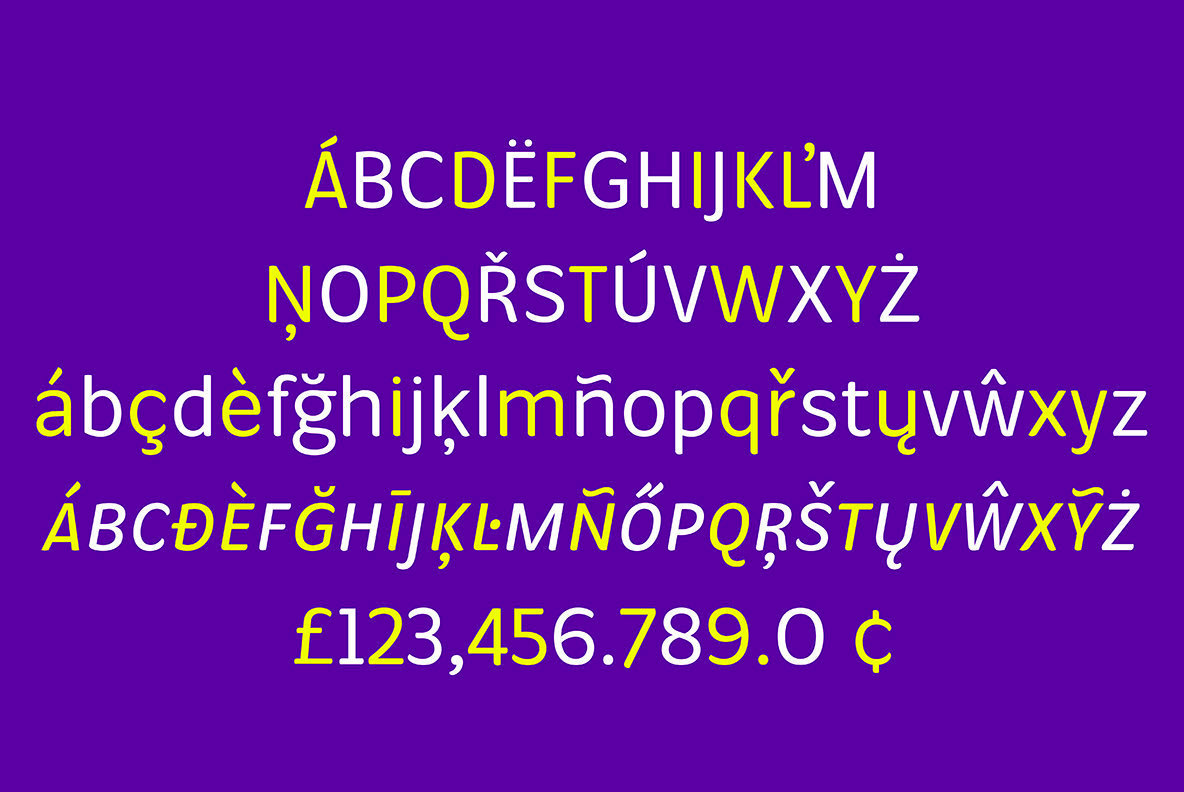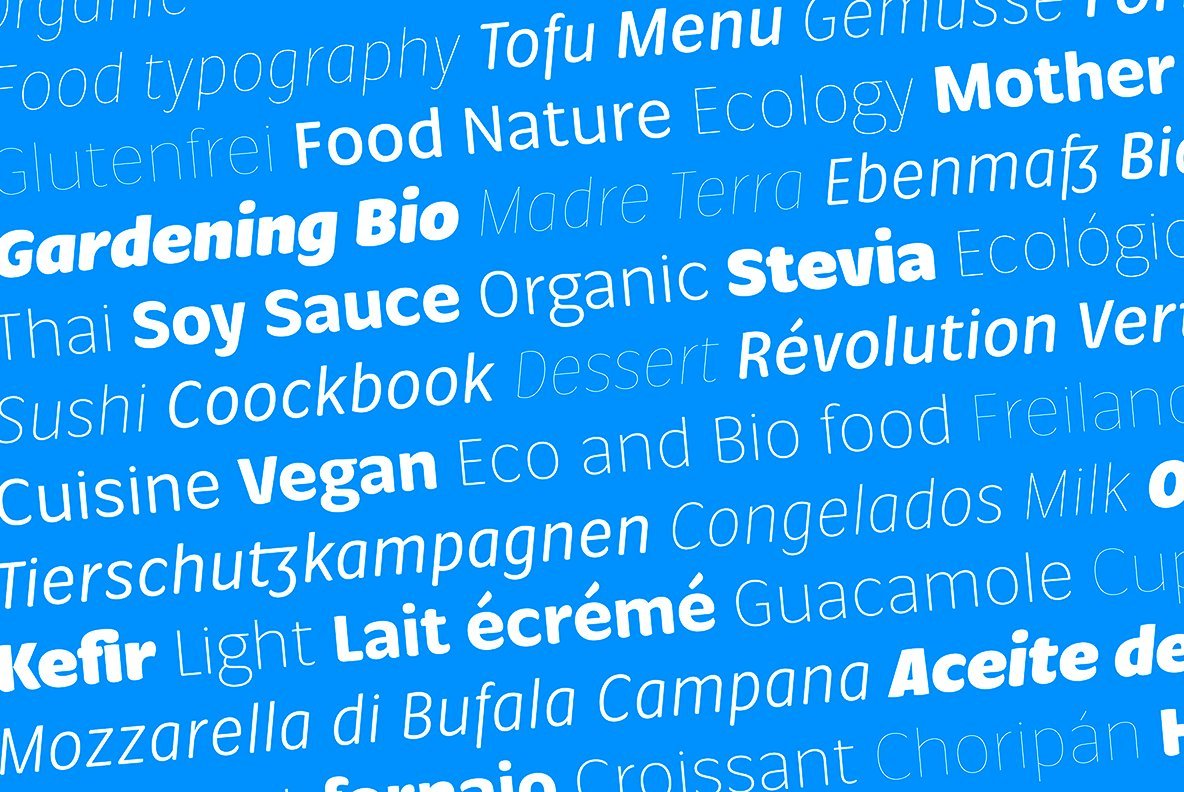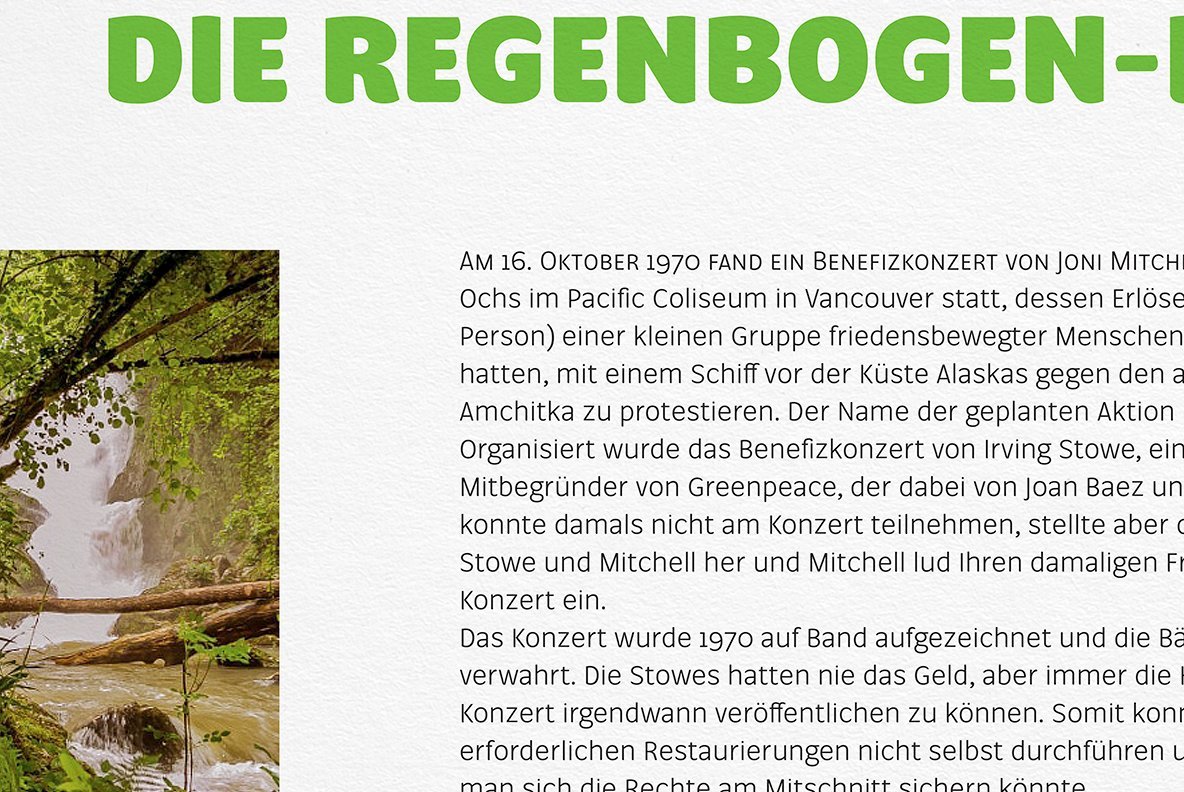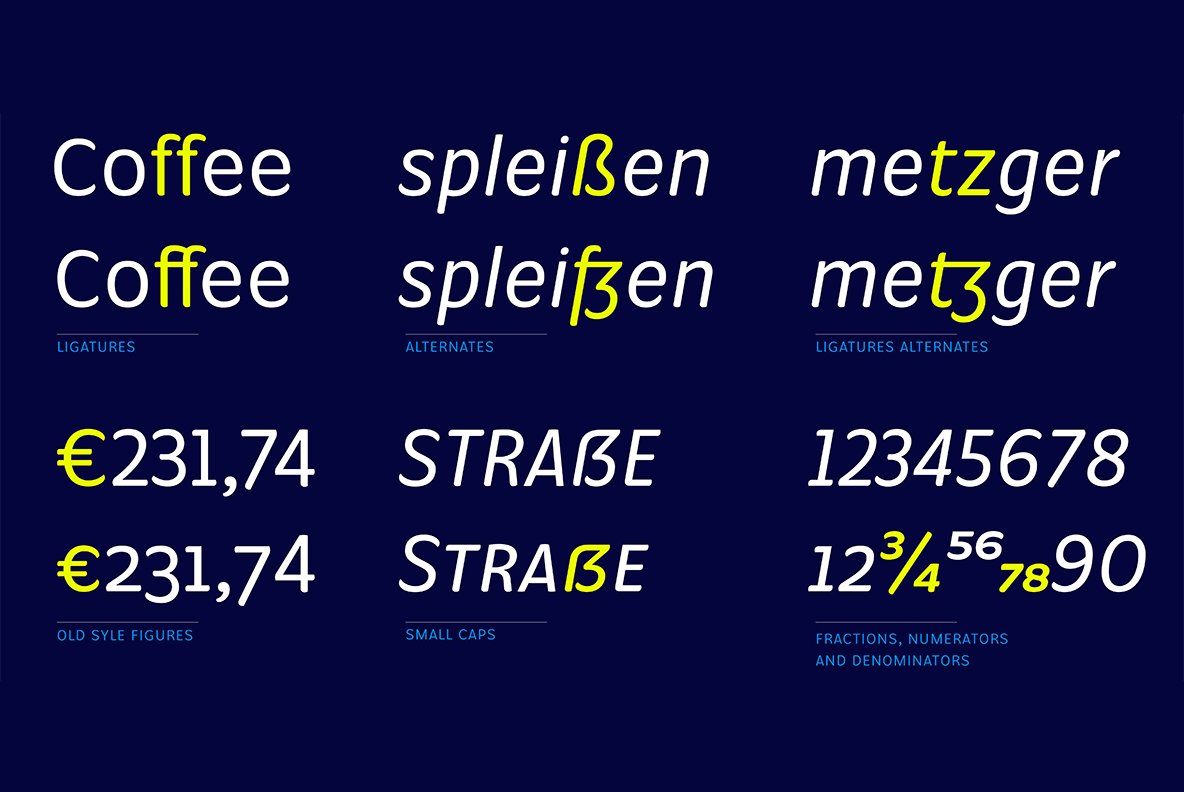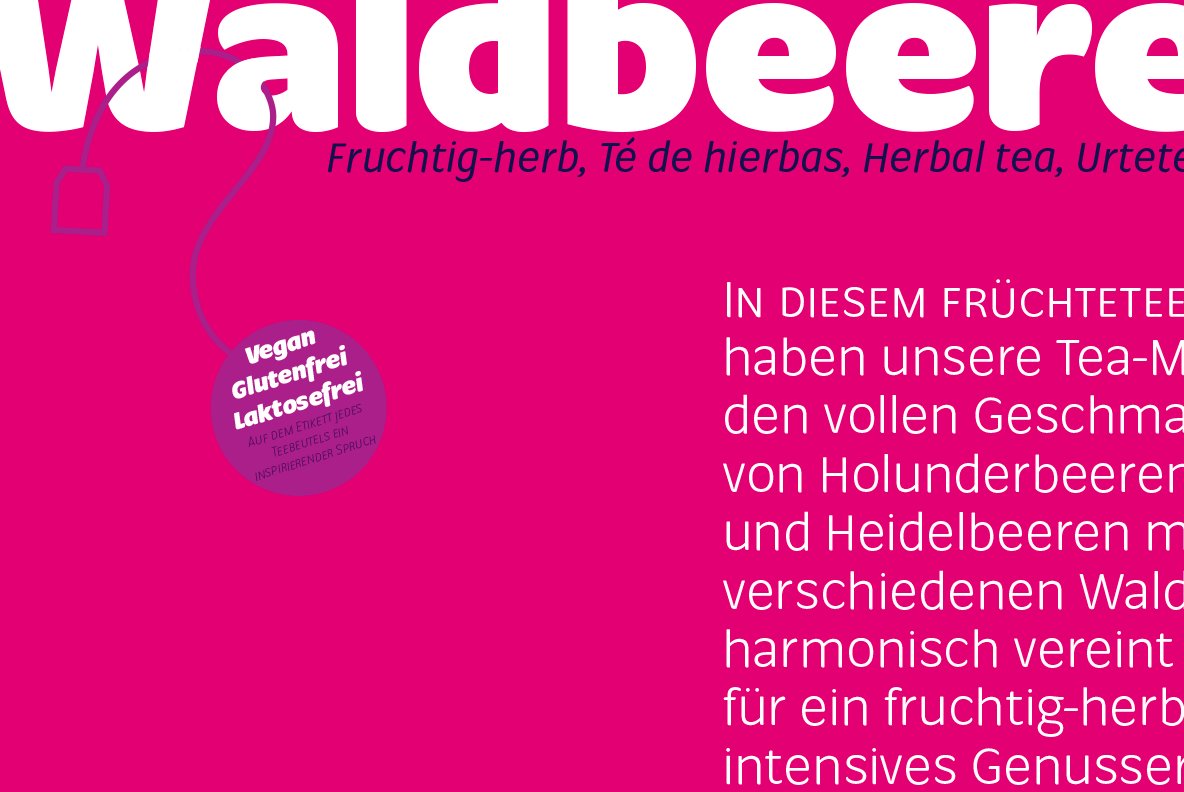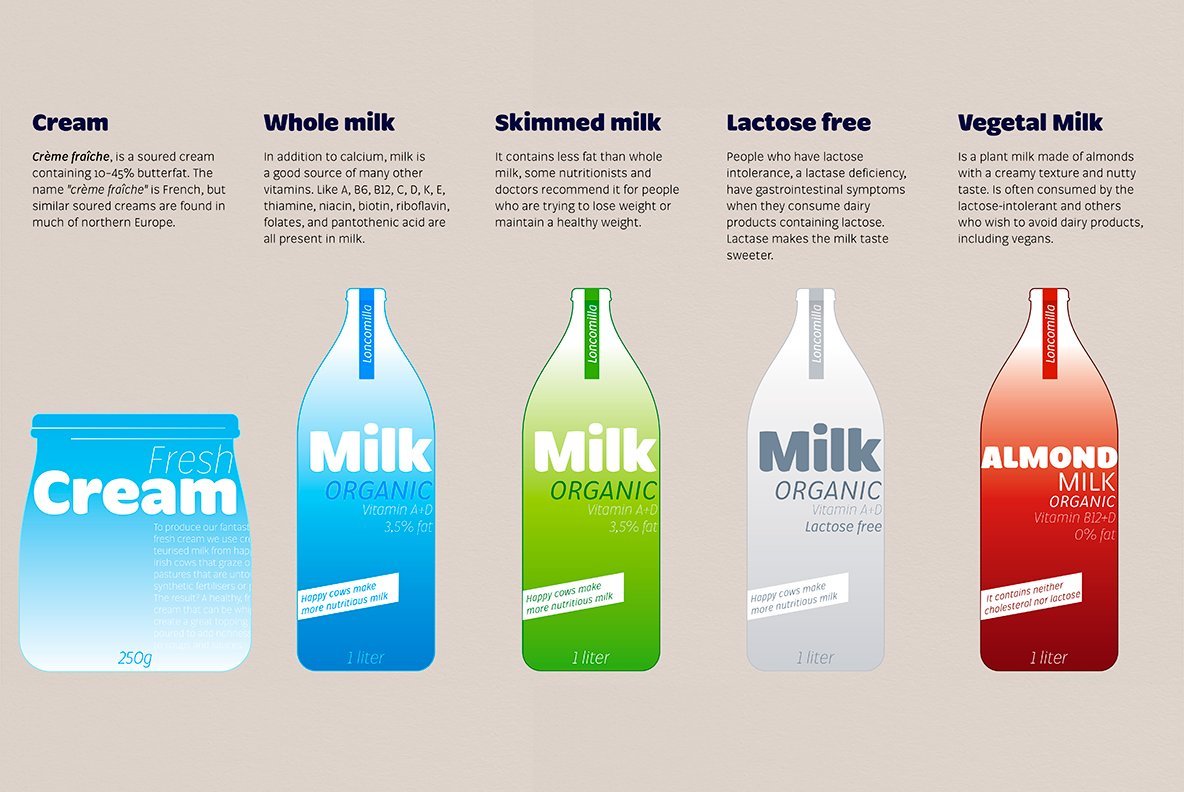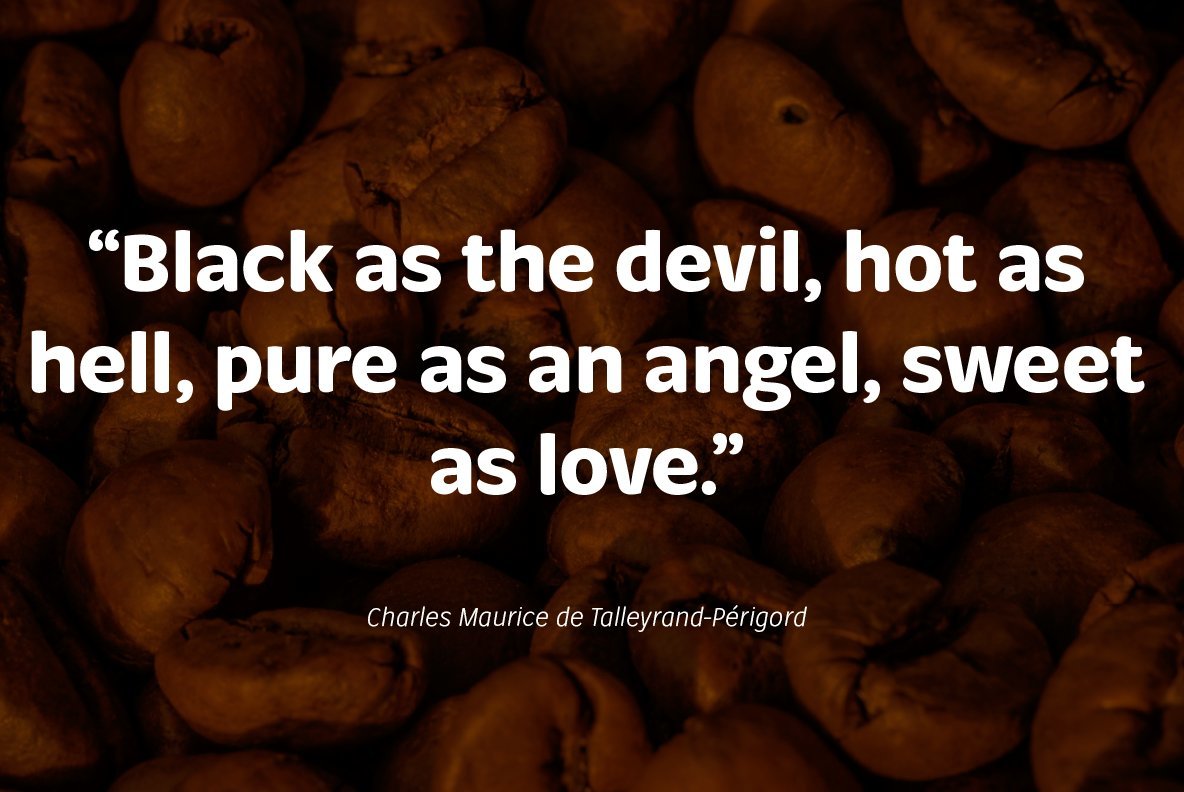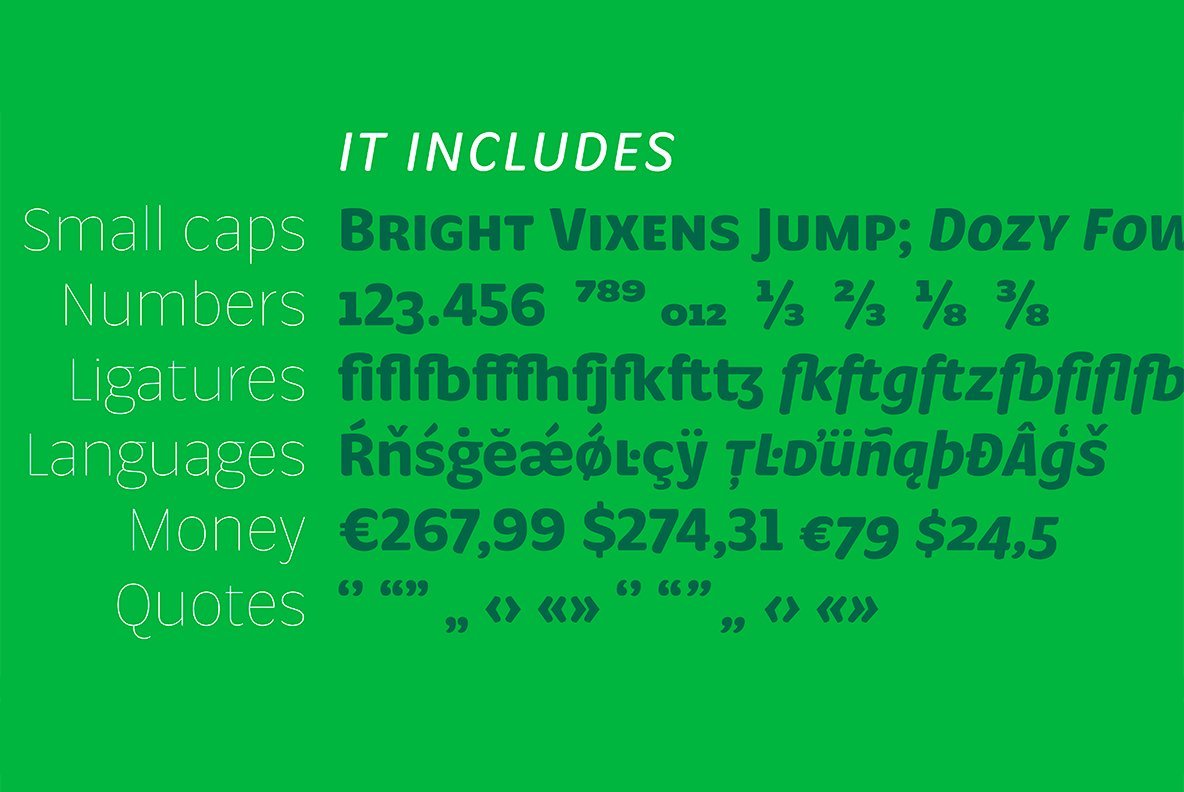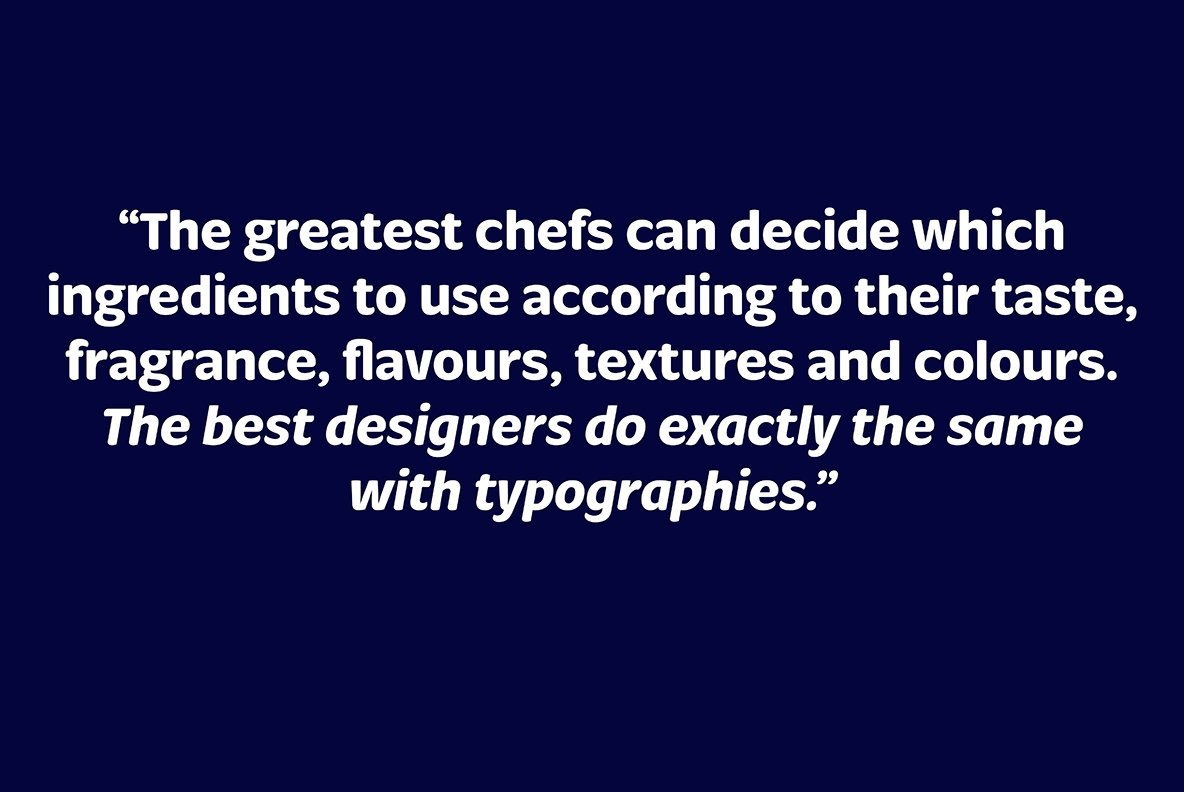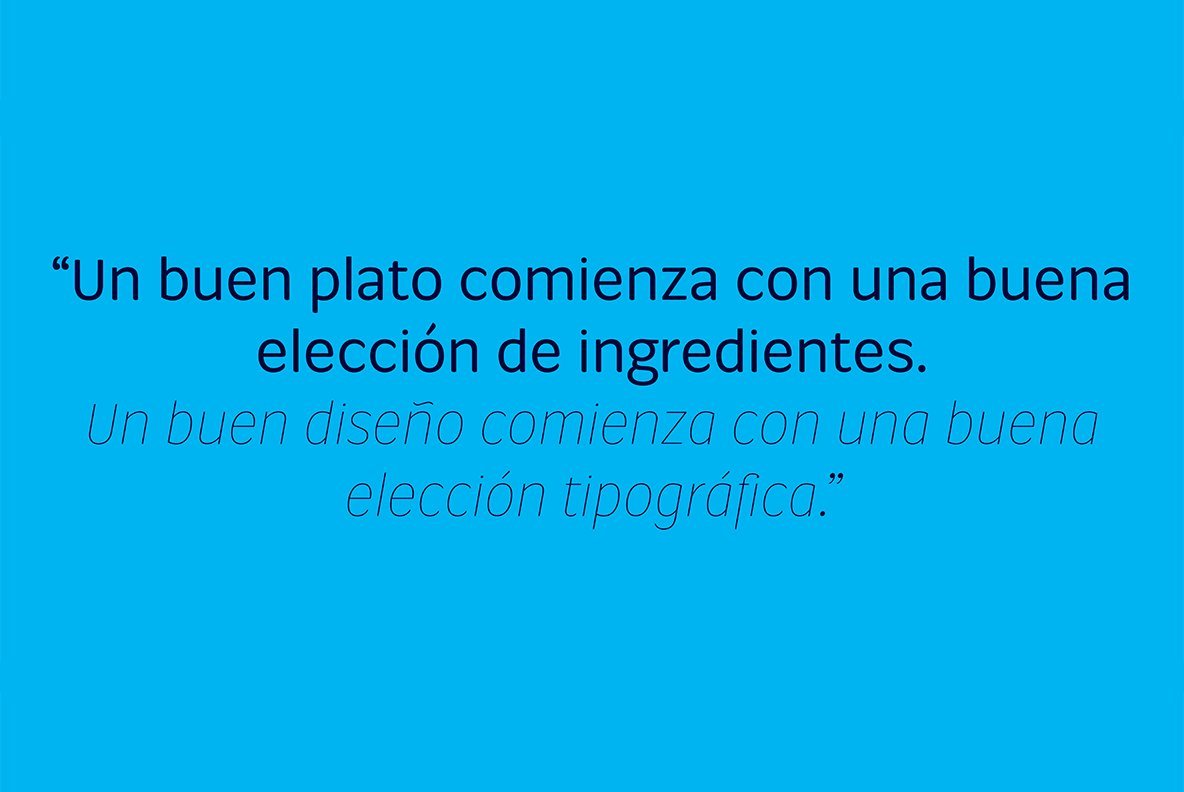
Condell Bio Font
Condell Bio is part of the bigger Condell family: a project who involves series of typographies and whose early conception and development began in 2006. Unlike its Poster version, with its excessive and eccentric forms, Condell Bio tries to adapt itself to a monolinear shape, but conserving at the same time the organic character of its forms and endings.
In this way Condell Bio is able to expanse its typographical use fields to a vaster scale. Condell’s endings and organic strokes haven’t been conceived in a structural way but stylistically. This means that Condell’s high readability doesn’t change and its original personality and idiosyncrasy as well.
Condell can be said the ideal typography for connoting the corporation and brand identity, because of its high readability; especially its “eatable” forms, who collects images of food, are easily adaptable to food industry. Condell is highly recommended for the following products groups: cleansers, dish soaps, toothpastes, all sorts of personal hygiene products (shampoos, soaps,..), industrial cleanser products and also for products which refer to its softness, volatility and smoothness.
Condell’s soft forms and nice endings, inspired through spontaneous brush strokes, give to the typography a very peculiar pleasant connotation. Its Italic (10 degrees inclination) has been produced singularly and not automatically calculated by the software.
Condell Bio Poster is composed of 16 fonts: from thin to black, whose weights are in regular and italic. Each singular weight has 600 characters and is composed of 206 languages.